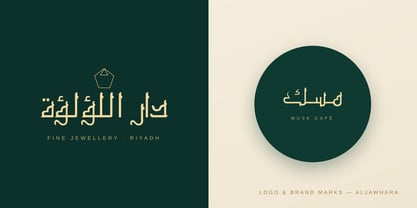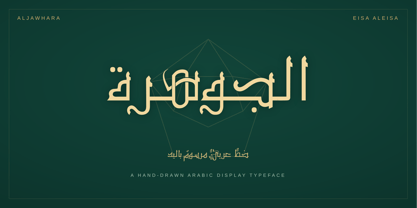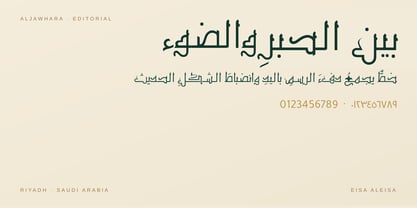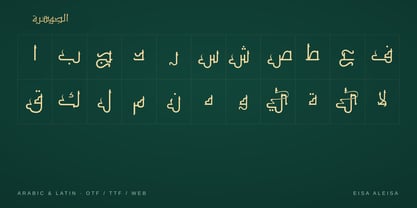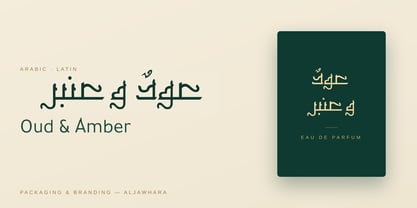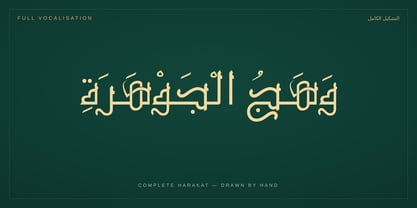
Aljawhara
Aljawhara , Arabic for "the jewel" : is an original hand-drawn Arabic display typeface from Riyadh, Saudi Arabia.
Every letterform began as an ink drawing on paper before becoming a digital curve, and that origin shows: rounded, hooked letterheads, flowing waves, deep bowls beneath the baseline, and stems finished with a single confident chamfer cut. The result is a typeface that feels unmistakably Arabic and unmistakably its own , warm like handwriting, disciplined like modern type.
Aljawhara was designed as a display face with real presence. It shines in logos and brand identities, headlines and magazine covers, posters, packaging, wedding and event stationery, social media graphics, and signage , anywhere Arabic text needs to carry personality rather than disappear into neutrality. The letterforms hold their character at large sizes and remain readable in shorter text settings.
Functionally, the typeface is complete. Full contextual Arabic shaping is automatic: initial, medial, final, and isolated forms connect correctly as you type, with required ligatures, the lam-alef in all its forms, and precise mark positioning. The complete set of harakat — fatha, damma, kasra, sukun, shadda, and all three tanwin , is drawn by hand in the same visual language, making Aljawhara a rare display font that looks beautiful fully vocalized. Arabic-Indic numerals (٠–٩), Arabic punctuation, and a matching Latin companion (A–Z, a–z, 0–9) are included, so bilingual Arabic-English layouts stay visually consistent in one font.
Aljawhara pairs naturally with quiet, low-contrast sans serifs for body text — let it take the stage while a neutral text face does the reading.
The jewel of the family is the first release from Eisa AlEisa, an independent foundry drawing original Arabic type by hand in Riyadh.
Eisa AlEisa is an independent type foundry from Riyadh, Saudi Arabia , the studio of artist and type designer Eisa AlEisa. Most releases begins as an ink drawing on paper: letterforms shaped by hand long before they become digital curves, which gives the work a warmth and rhythm rooted in the visual culture of the Gulf. The foundry focuses on original Arabic type , contemporary designs with real personality, careful joins, deep bowls, and stems cut with a single confident chamfer. Each typeface is drawn to hold its character at display sizes and stay readable in text. The last release, Aljawhara, takes its name from the Arabic word for "the jewel."